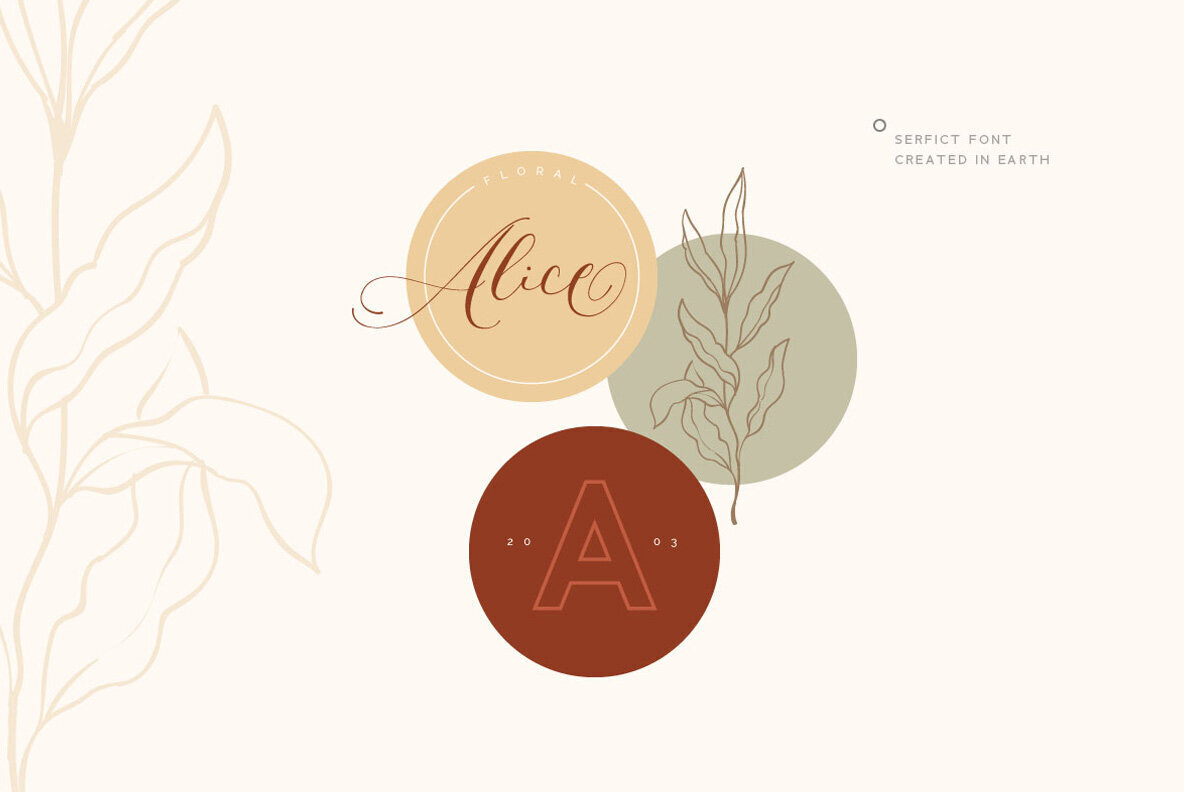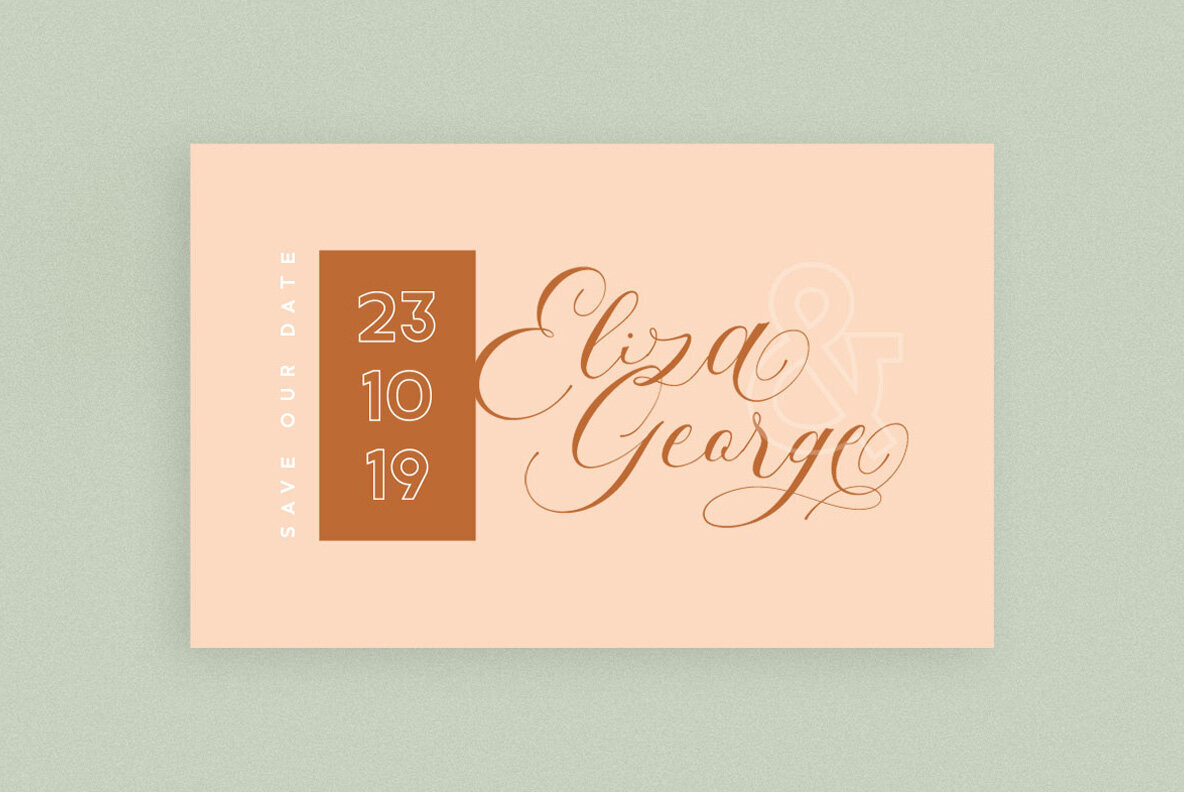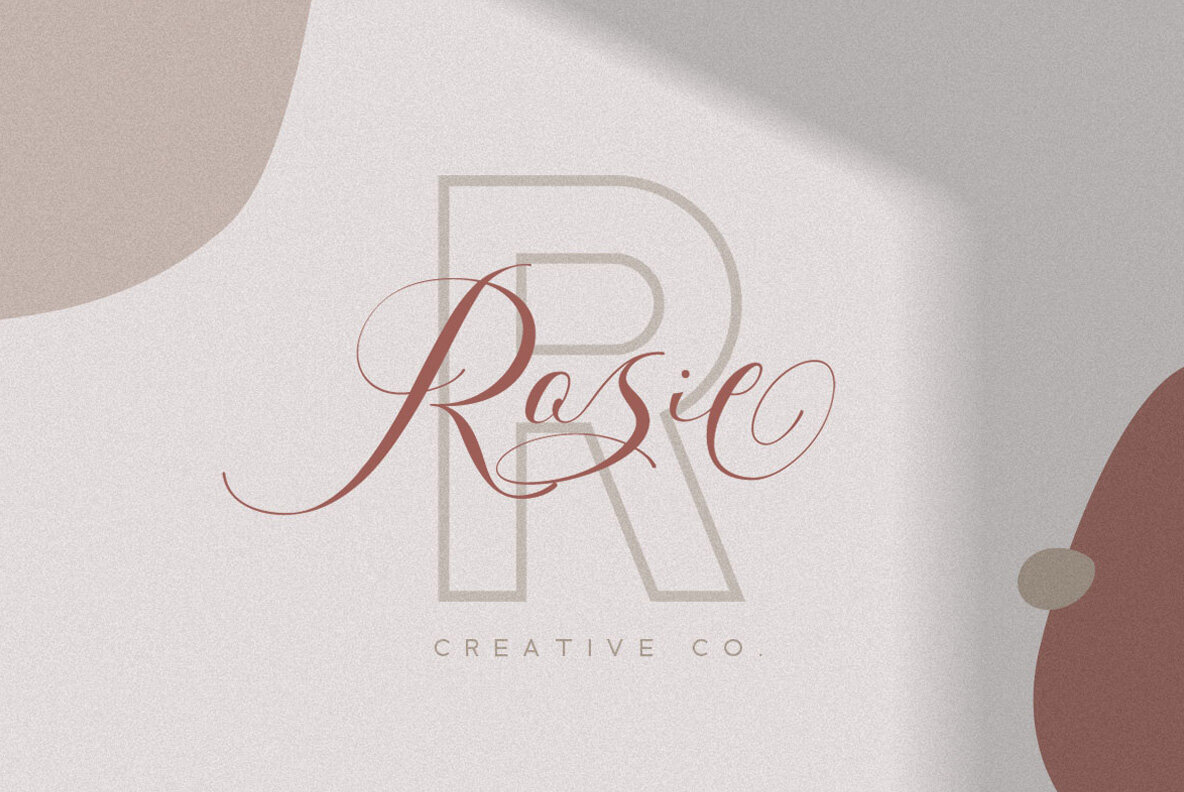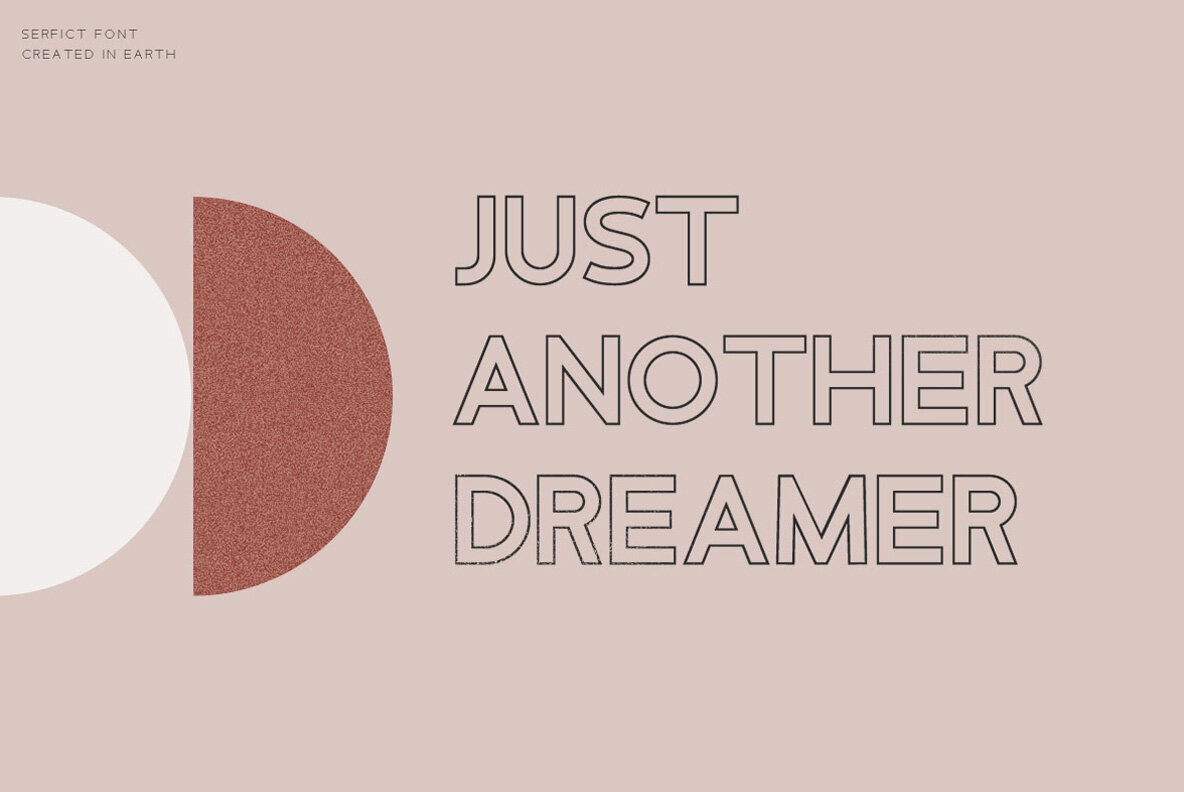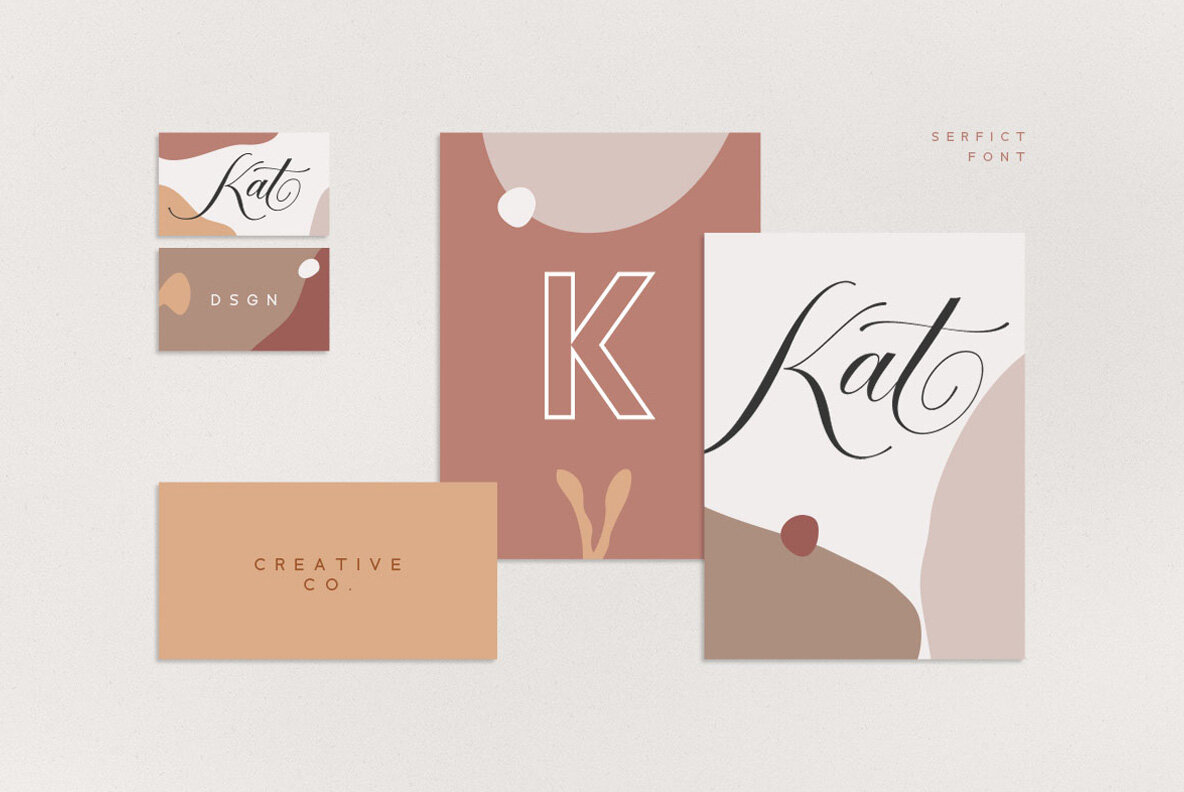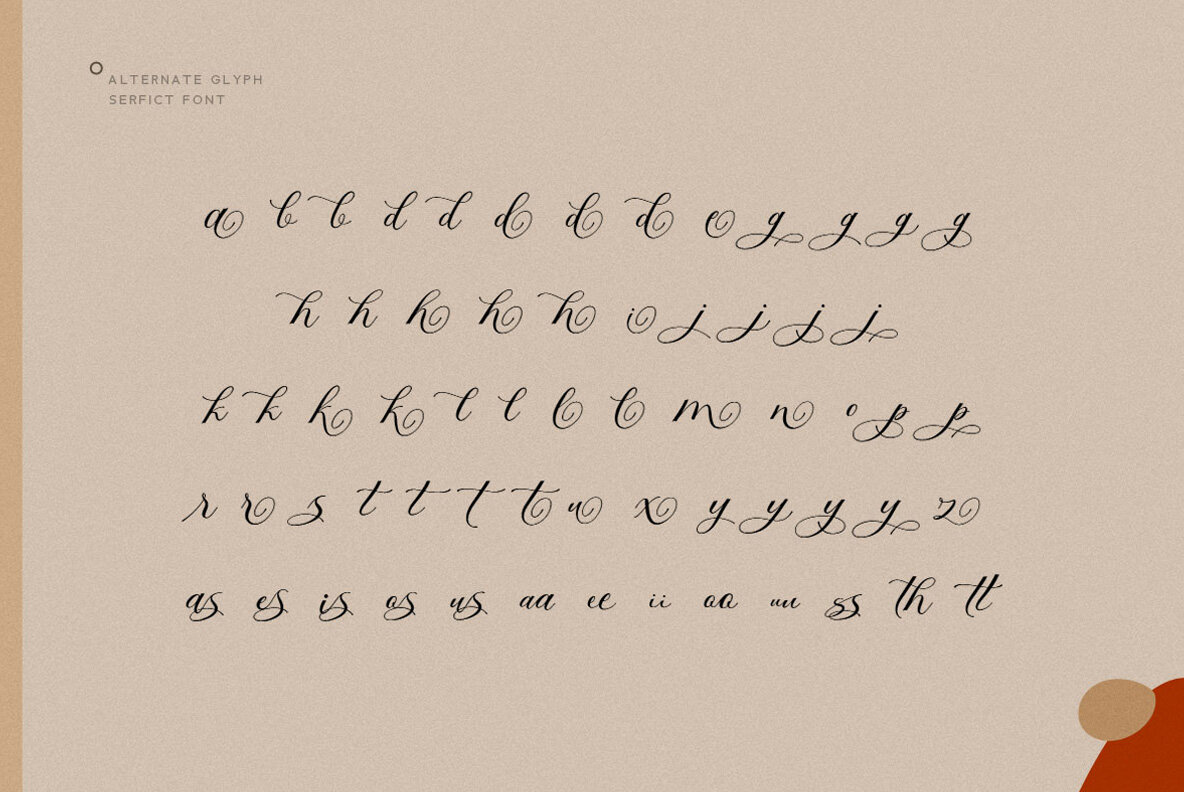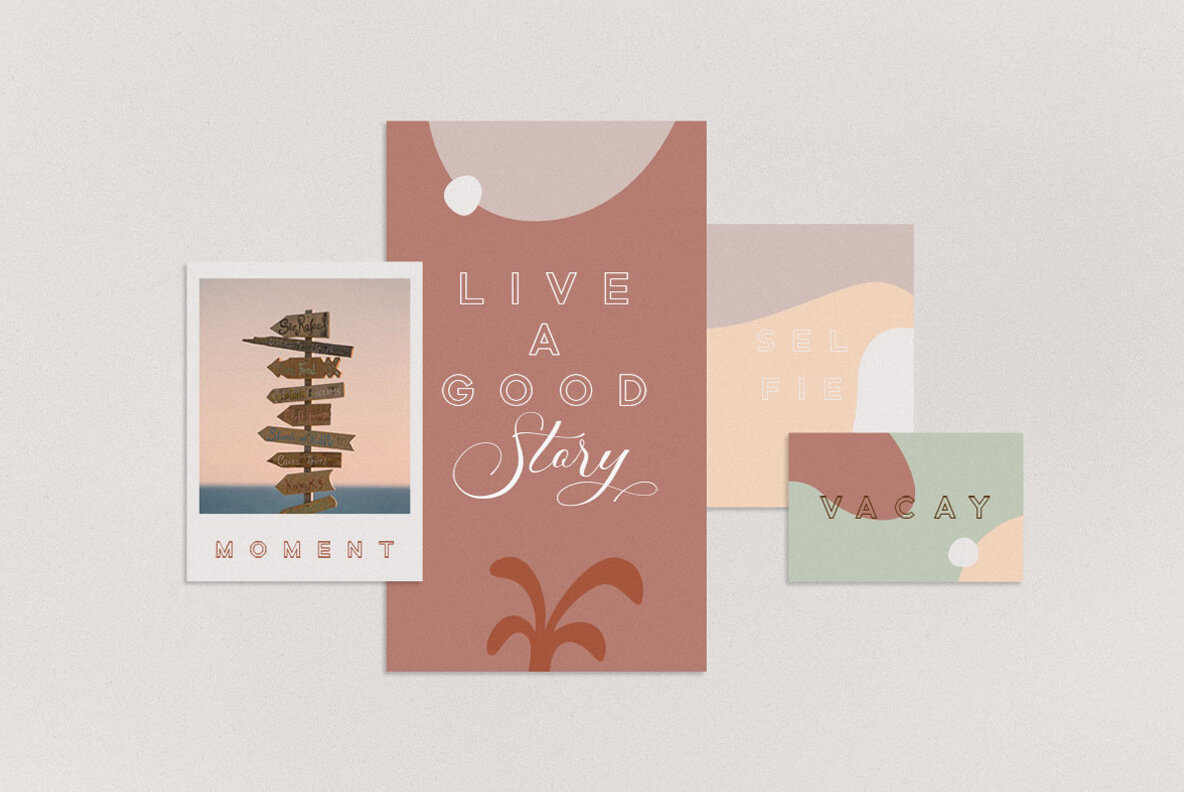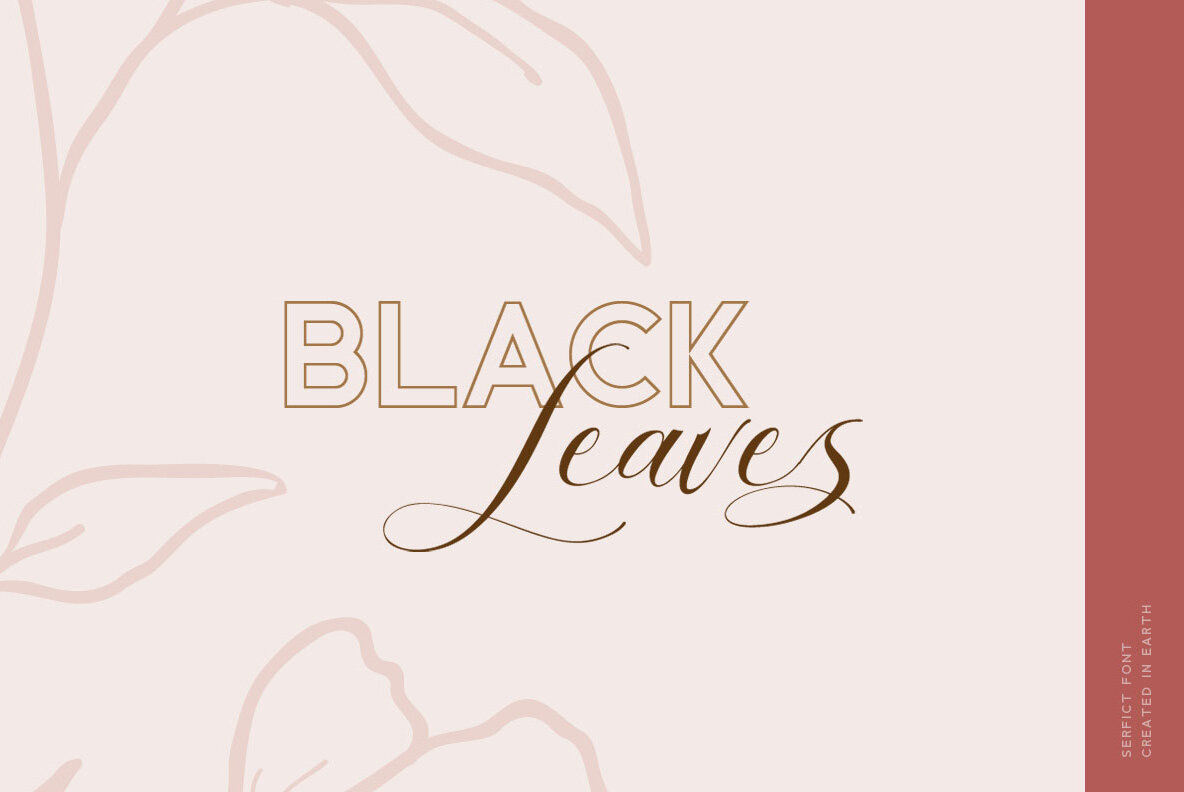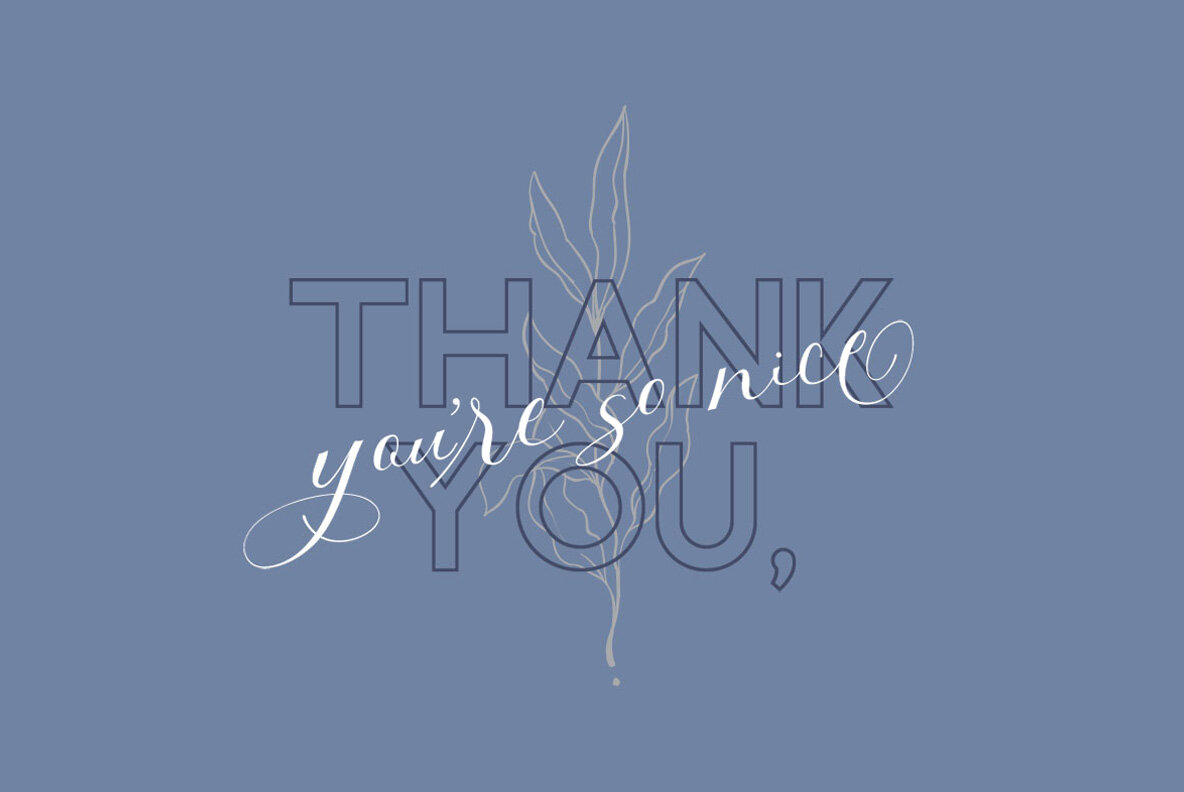
Serfict Font Duo
Serfict Font Duo and Bonus Package (2 fonts)
The combination of these two fonts is perfect for any project. With a modern script style, it will add beauty and elegance to your text while still being able work in many different types of media like Instagram posts or signatures logos!